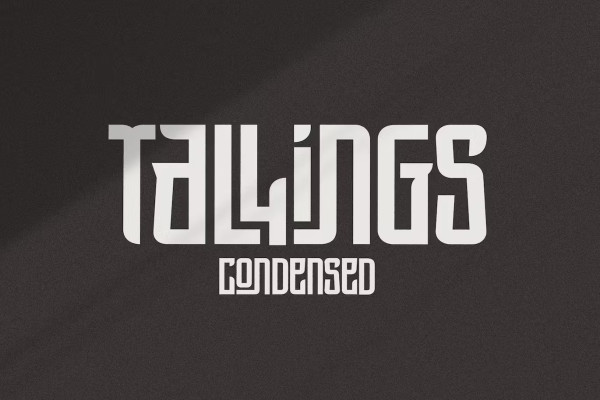
Tallings Display Font
Tallings Display Font, is a bold modern, urban-condensed font, inspired by street urban poster that combines the classic and modern style. TALLINGS will be best suited for creating logotypes, branding, headlines, corporate identities, Invitation card, and other graphic design elements.